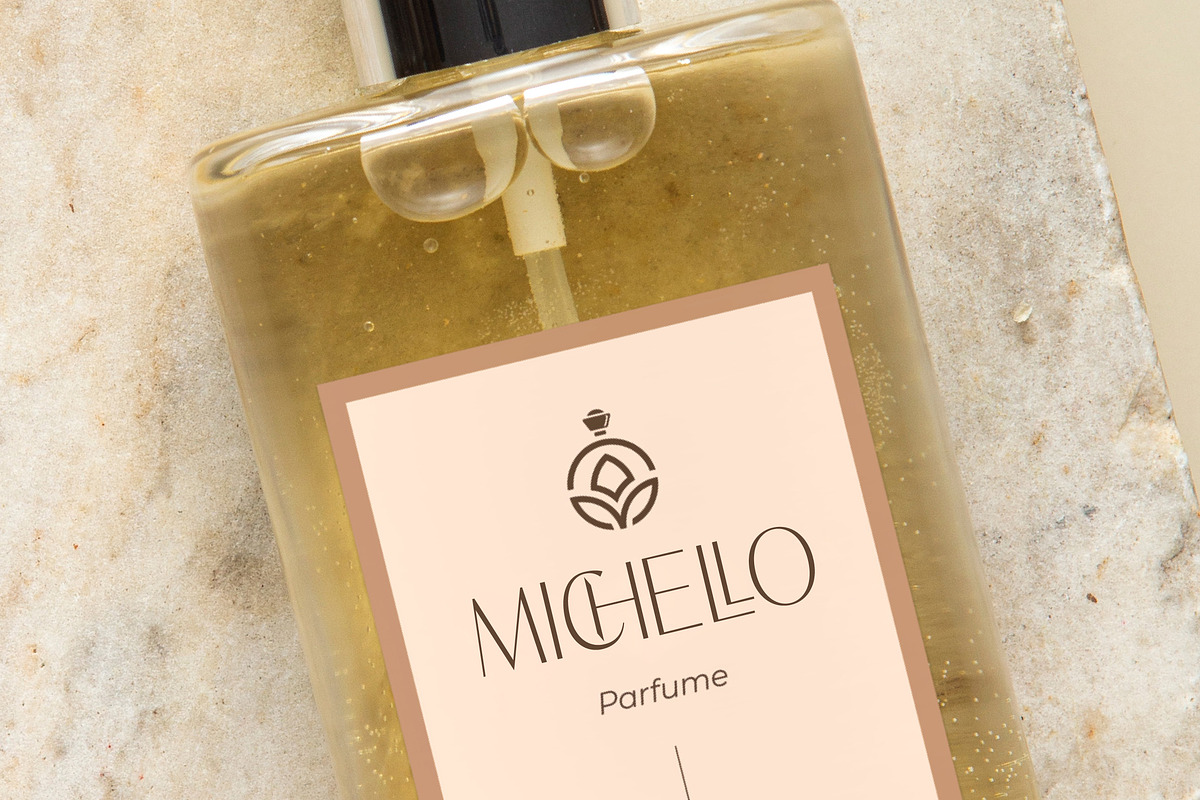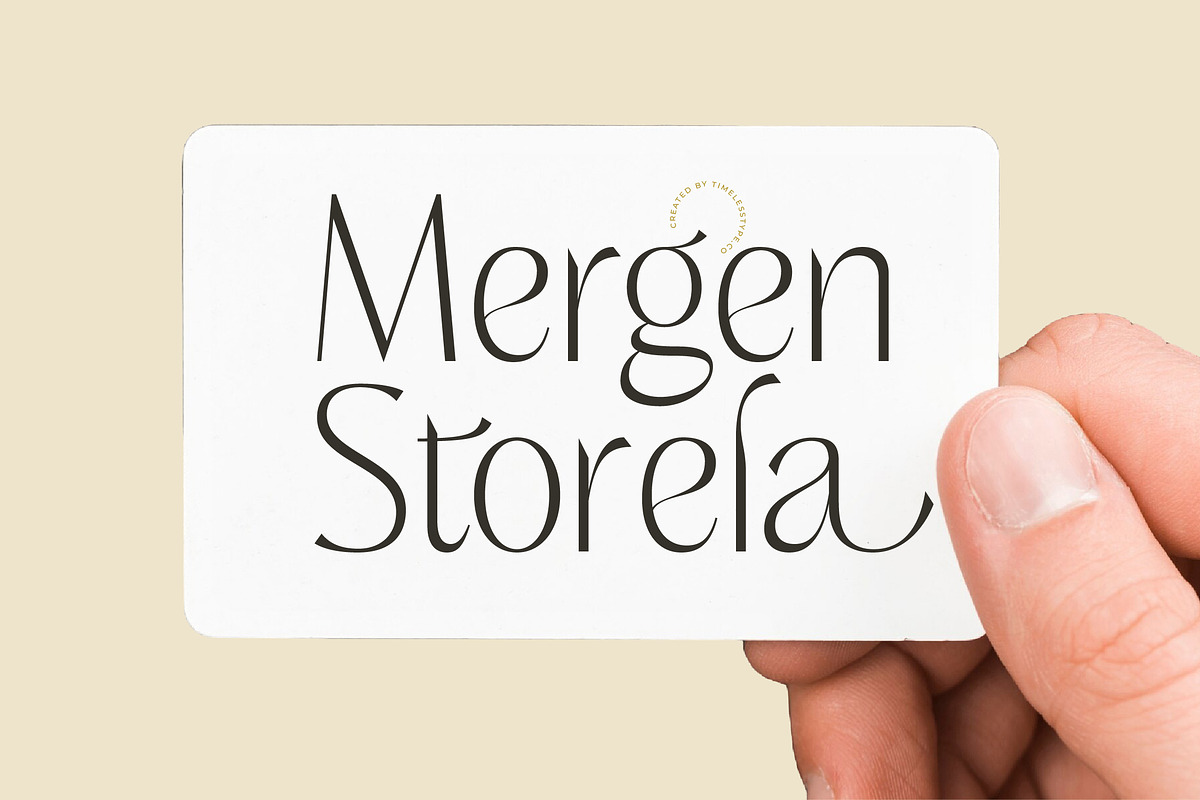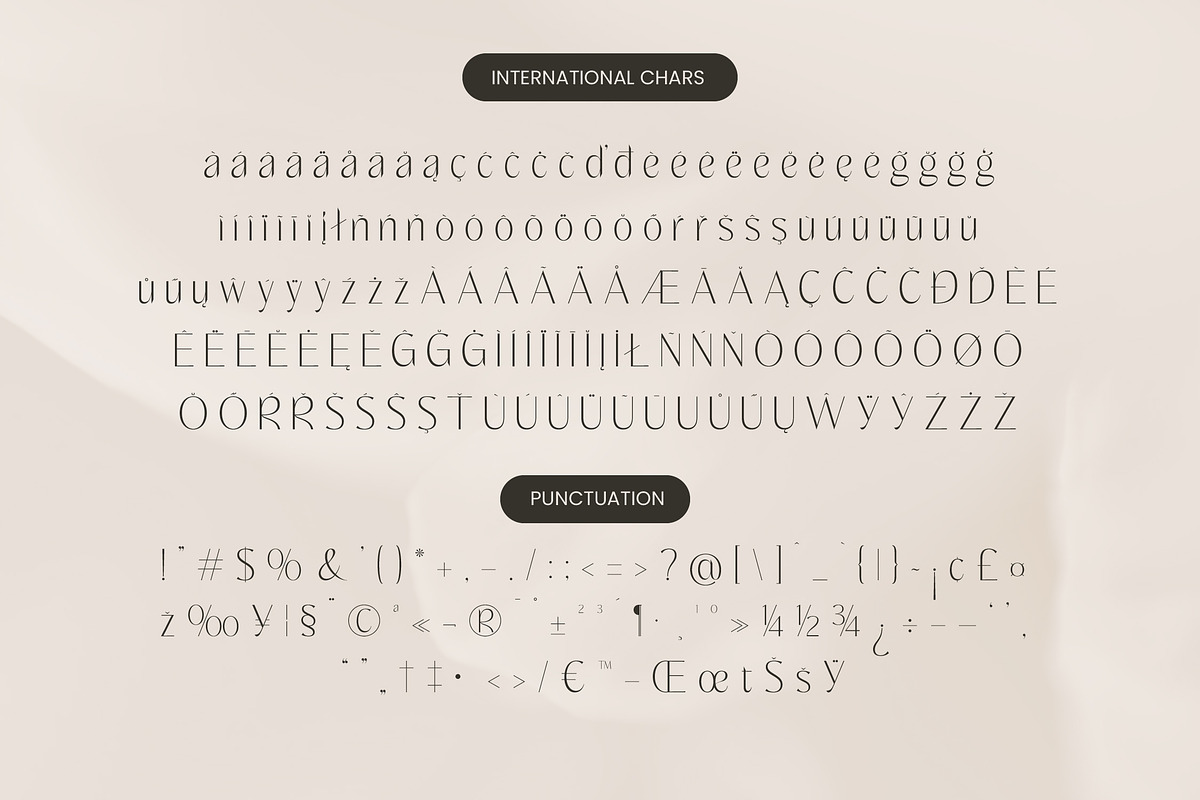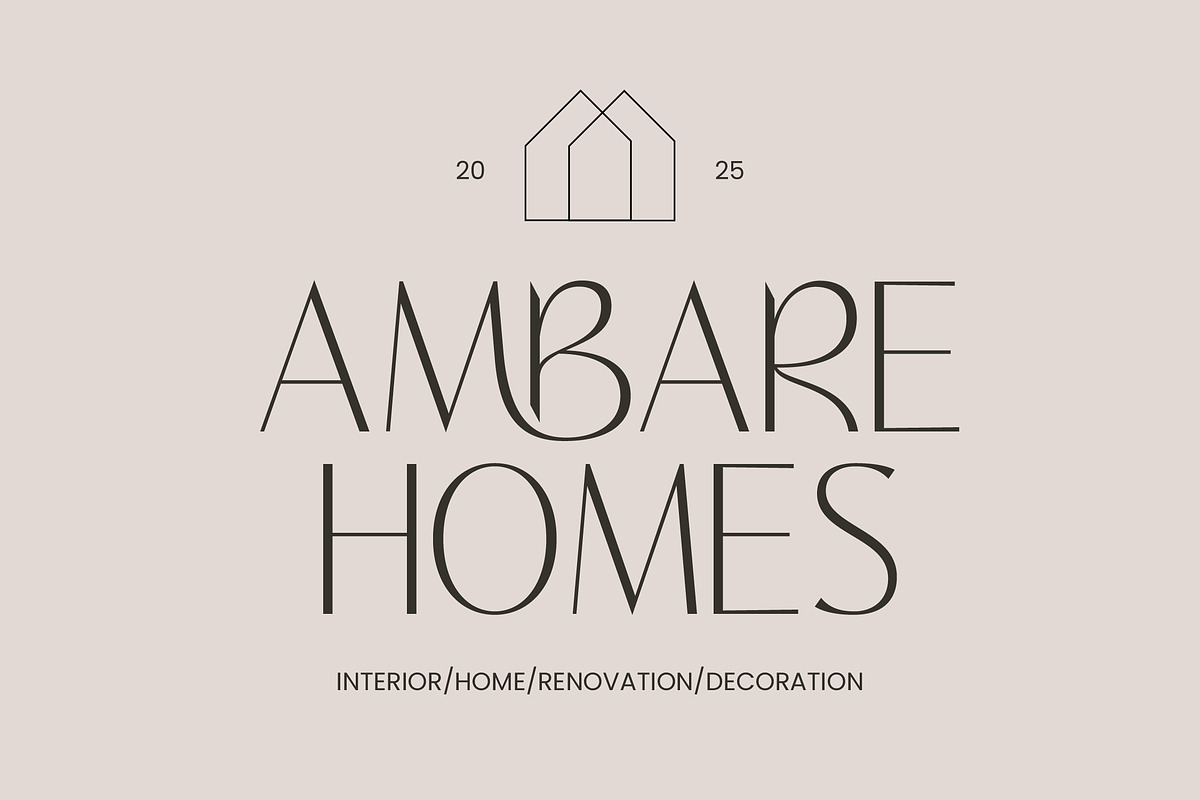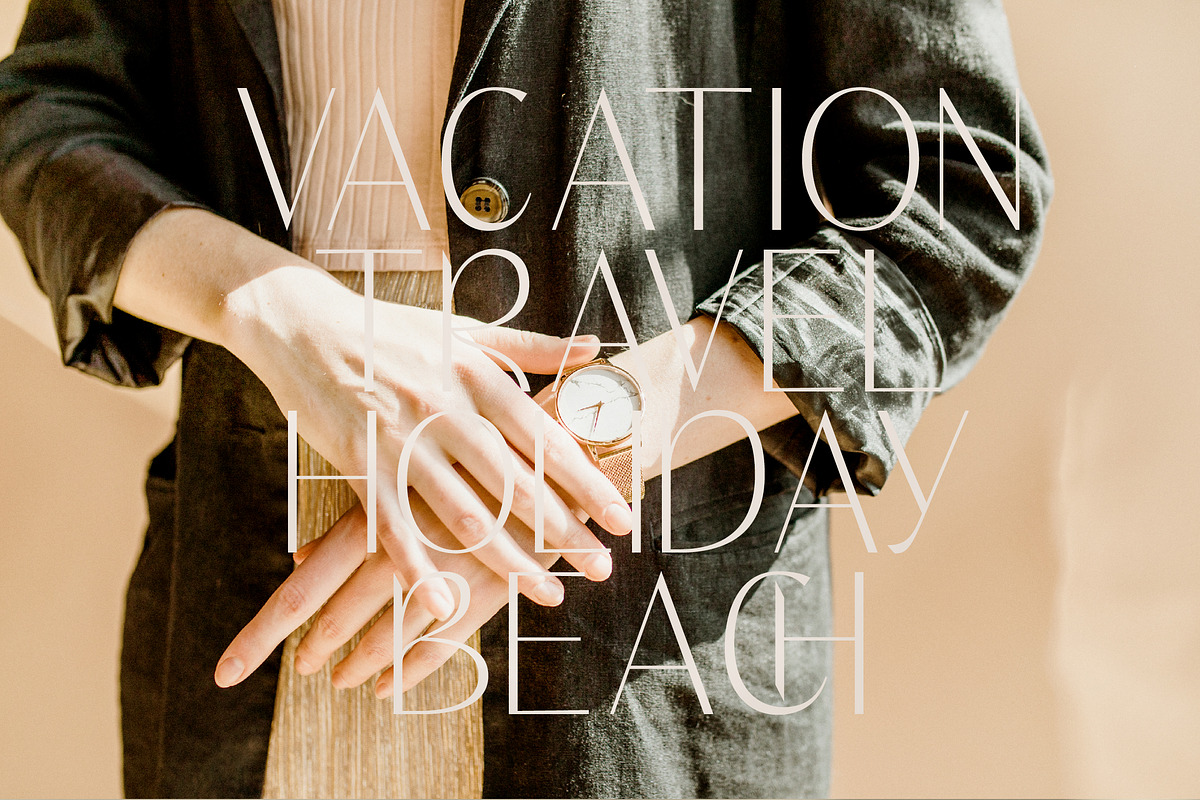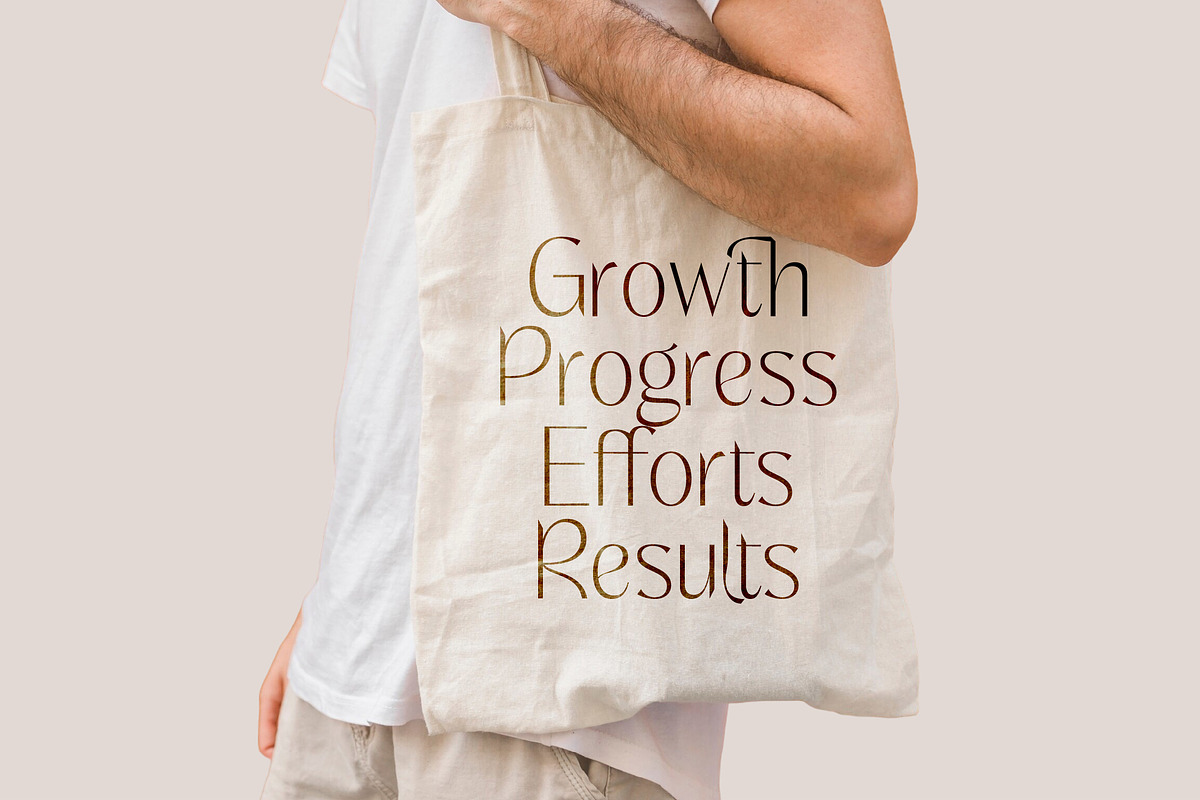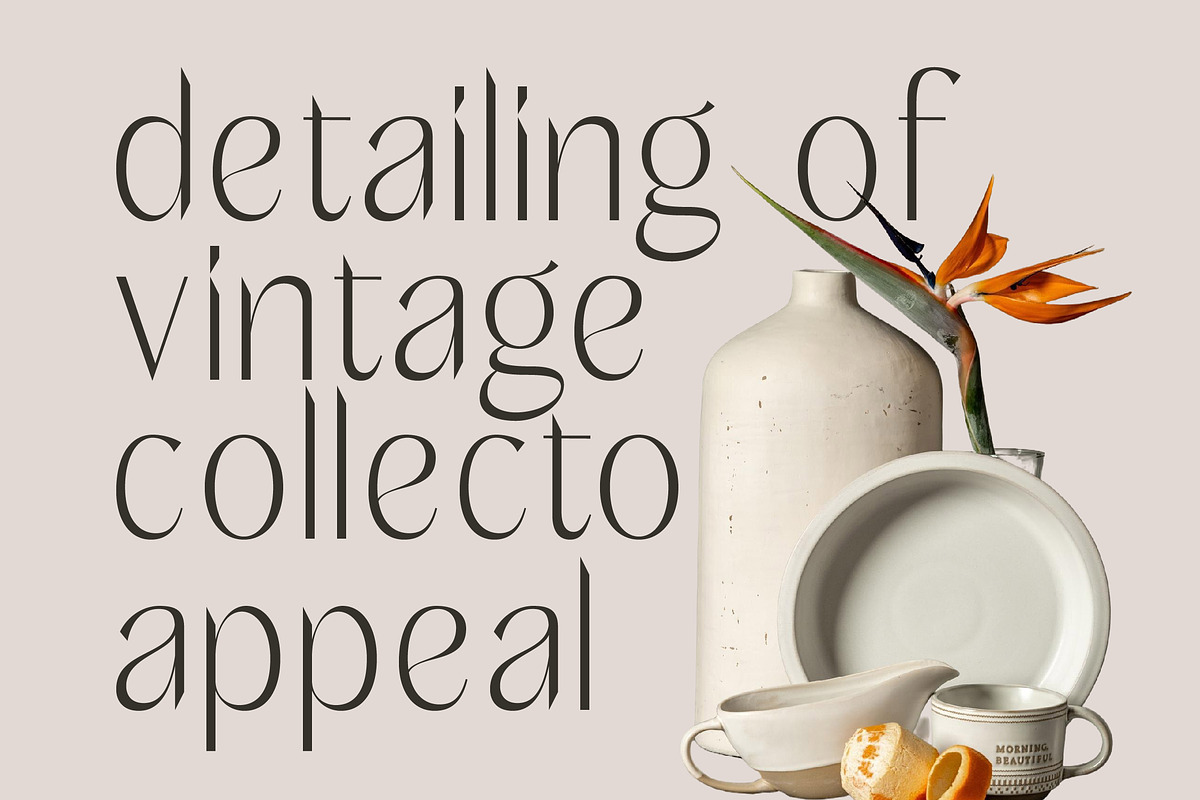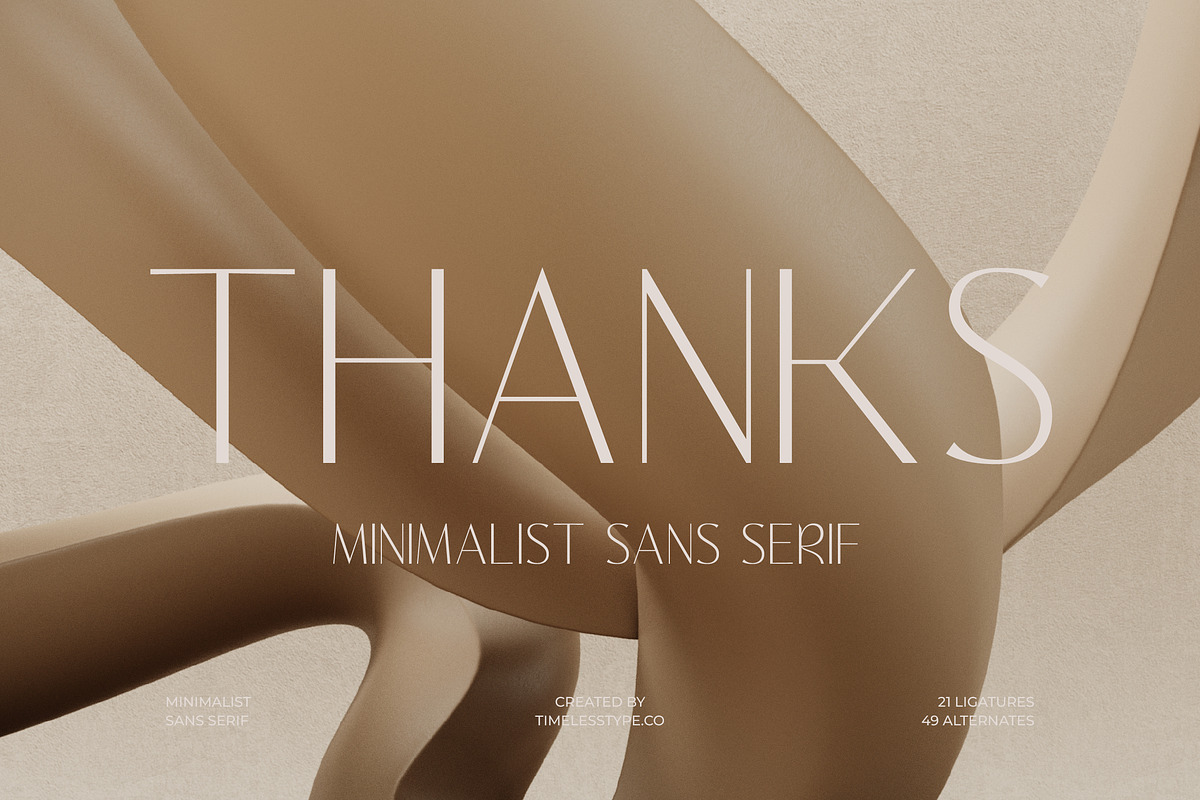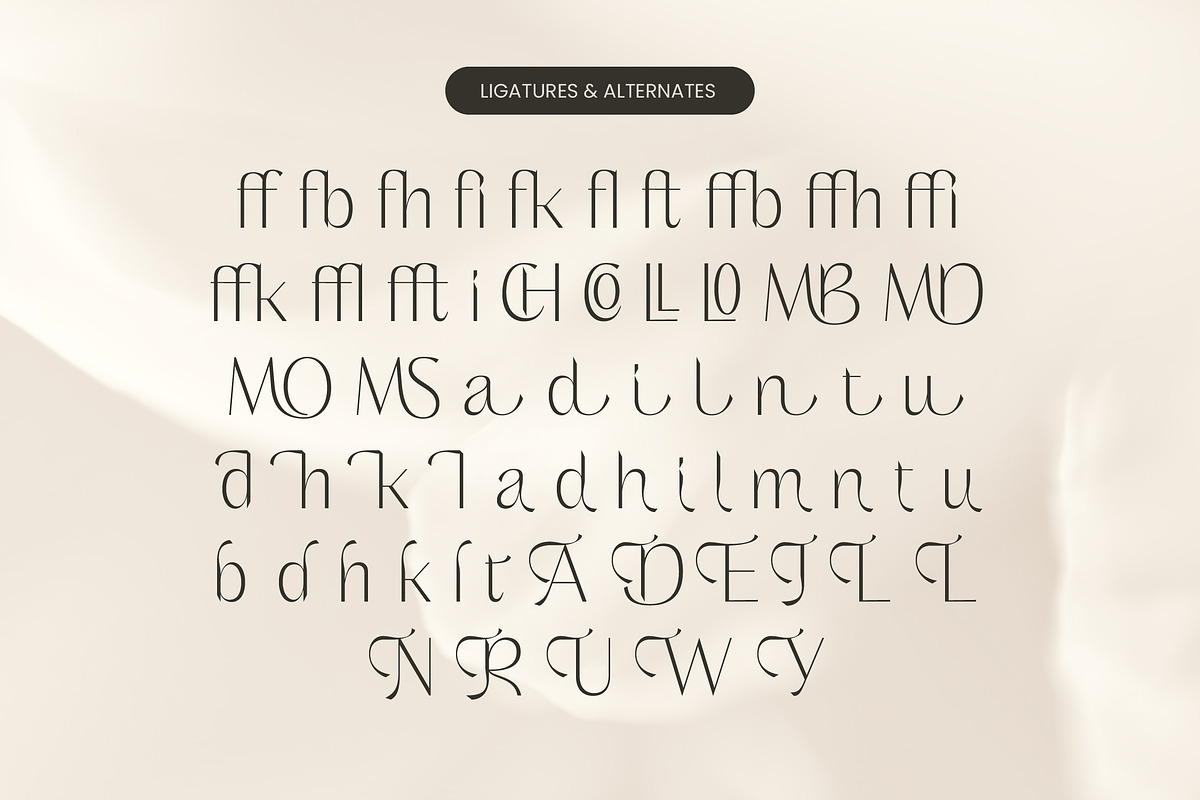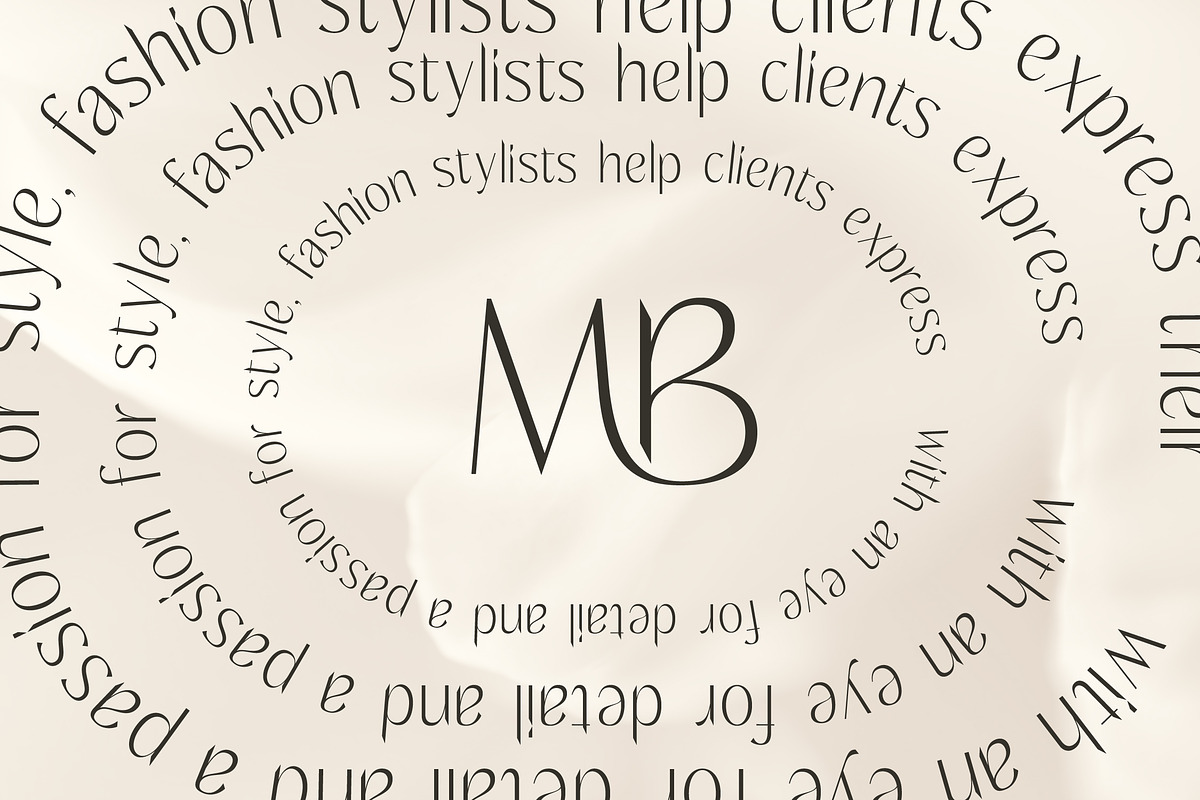
Kingray Quento Luxury Display Font
Experience the intersection of timeless elegance and contemporary minimalism with Kingray Quento, a typeface designed to redefine sophisticated visual storytelling. This font serves as a masterclass in balance, offering designers a refined tool for creating high-impact layouts that demand attention.
Drawing inspiration from the sleek lines of mid-century architecture and the delicate precision of high-end jewelry design, the atmosphere of this typeface is one of quiet confidence. It evokes a sense of walking through a modern art gallery where every curve and line is intentional, resulting in a visual language that is both ethereal and grounded.
This modern serif display exudes an air of exclusivity, making it the perfect choice for projects requiring a touch of luxury typography. With its high-contrast serif elements and sharp, clean terminals, it functions as a premier editorial font that ensures a lasting branding impact for discerning clients who value subtle distinction.
As the modern serif trend continues to dominate the aesthetic landscape of digital and print media, this typeface stands out by offering unique character shapes. It aligns perfectly with the current demand for editorial display fonts and character-driven typography, providing a versatile solution for designers looking to stay ahead of the curve.
Tailored for premium logo design and comprehensive branding identity systems, this font excels in high-stakes environments like editorial layouts and luxury product packaging. It is equally suited for the romantic flair of wedding stationery or the cutting-edge aesthetics of the fashion industry, where clarity and style must coexist.
Unlock endless creative possibilities with the included 21 ligatures and 49 alternates that allow for custom-tailored typographic compositions. The set is fully equipped with multilingual support and a wide array of international characters, ensuring your message resonates globally without the need for additional swashes or external assets.
- Ligature 21 Alternate 49